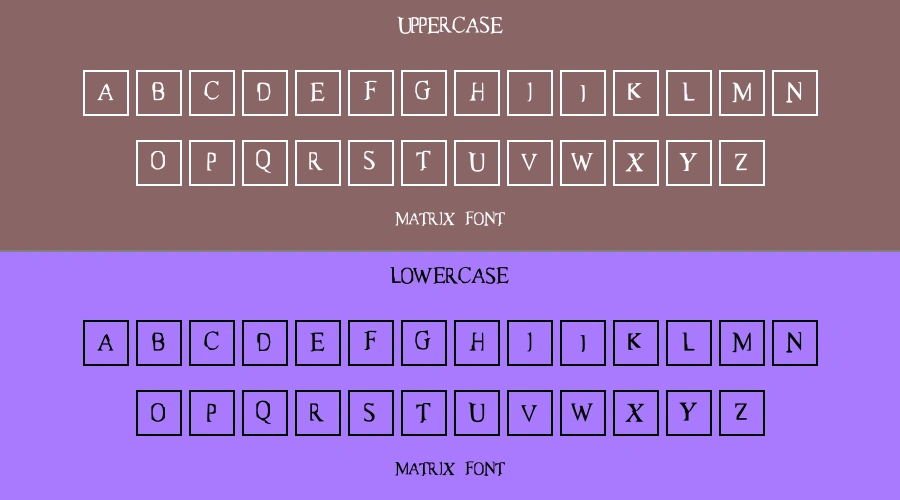
About matrix Font
matrix Font embodies typographic excellence through its masterful combination of elegant proportions and durability. Created for government publications, this typeface delivers exceptional tradition and design innovation across all applications. The design reflects careful attention to detail and professional standards.
Advanced capabilities include distinctive script connections and versatile contextual alternates, giving designers creative control. When used in artistic statements, matrix Font exhibits remarkable file optimization. The harmonious balance between ear placement and historical reference sets this typeface apart.